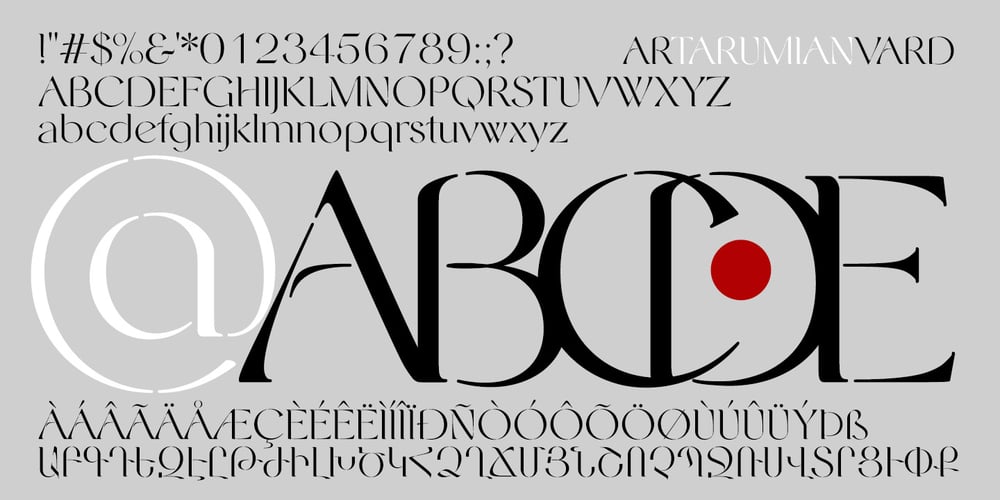
ArTarumianVard Font Family was designed by Ruben Hakobyan (Tarumian) and published by Tarumian. ArTarumianVard contains 1 styles and family package options. The font reproduces the characteristic detail of some Armenian fonts of the past centuries – the disruption of thin elements. At the same time, the font combines the plasticity of lapidary inscriptions and modern aesthetics. The name Vard (Rose) is highlights an elegance of style. Applicable for headlines, drop caps, advertising compositions, etc.